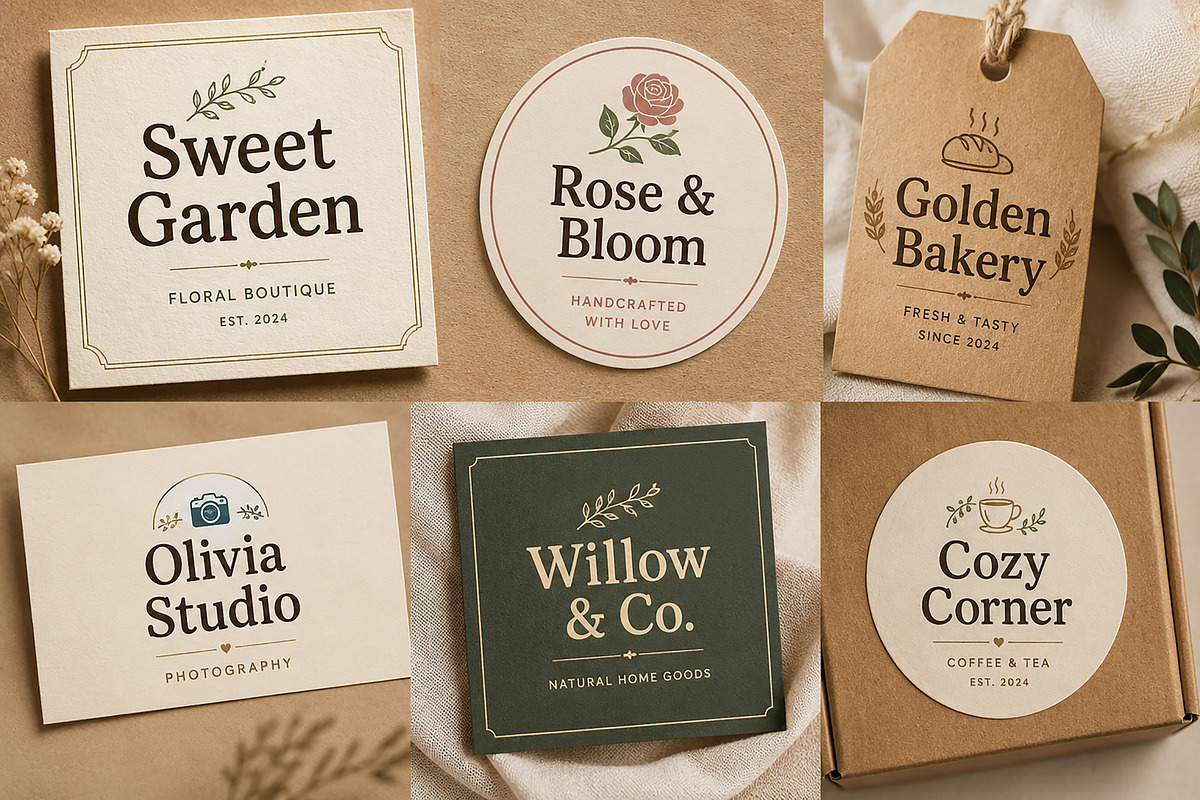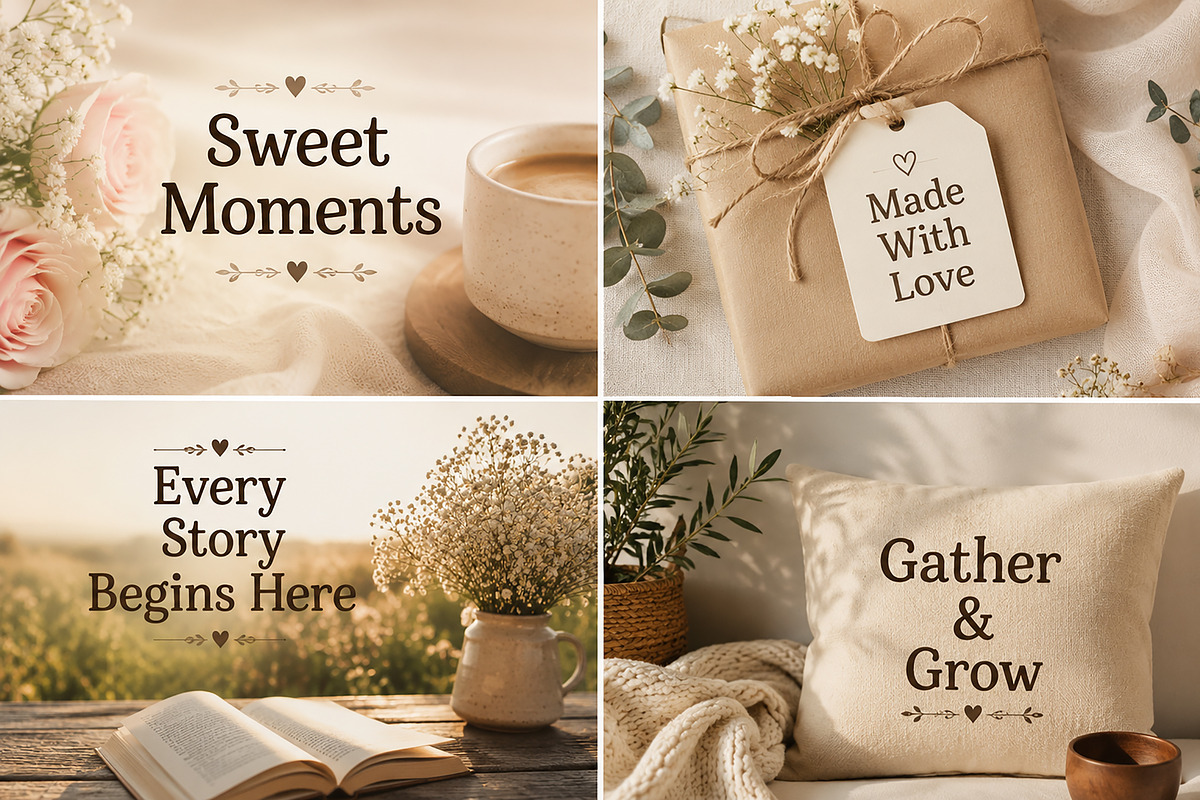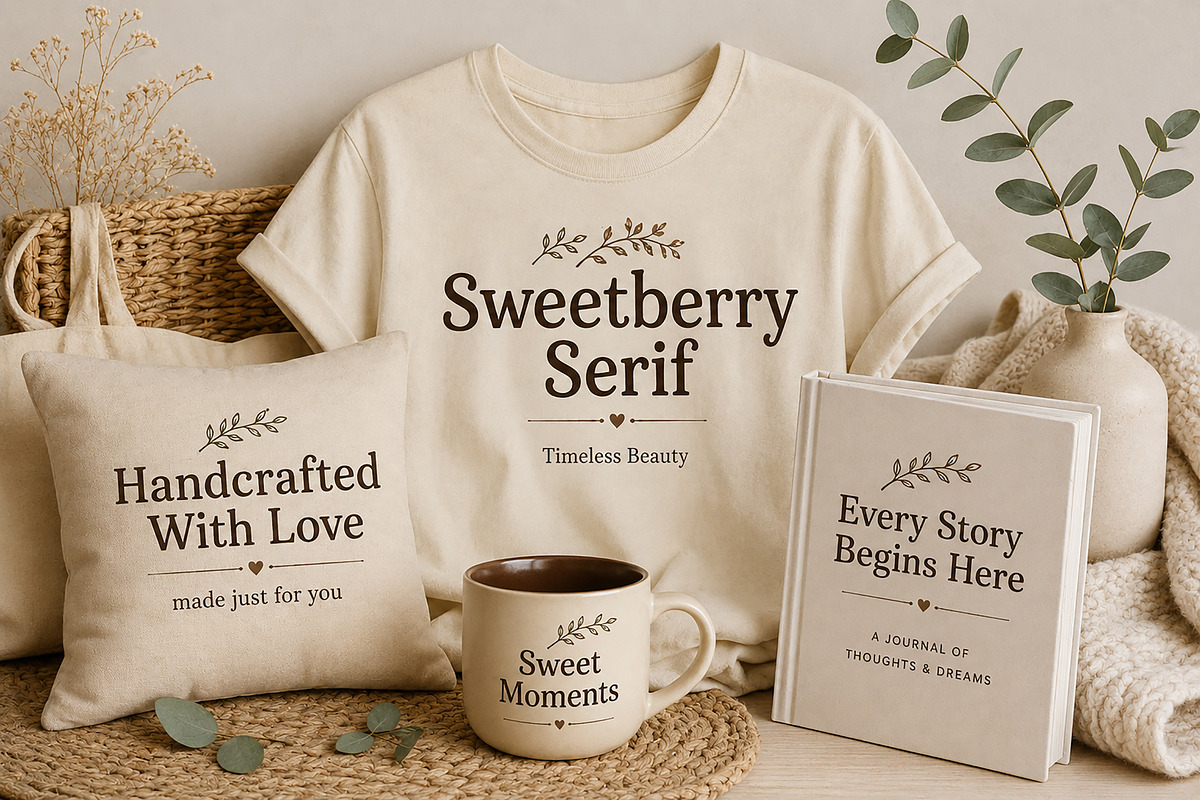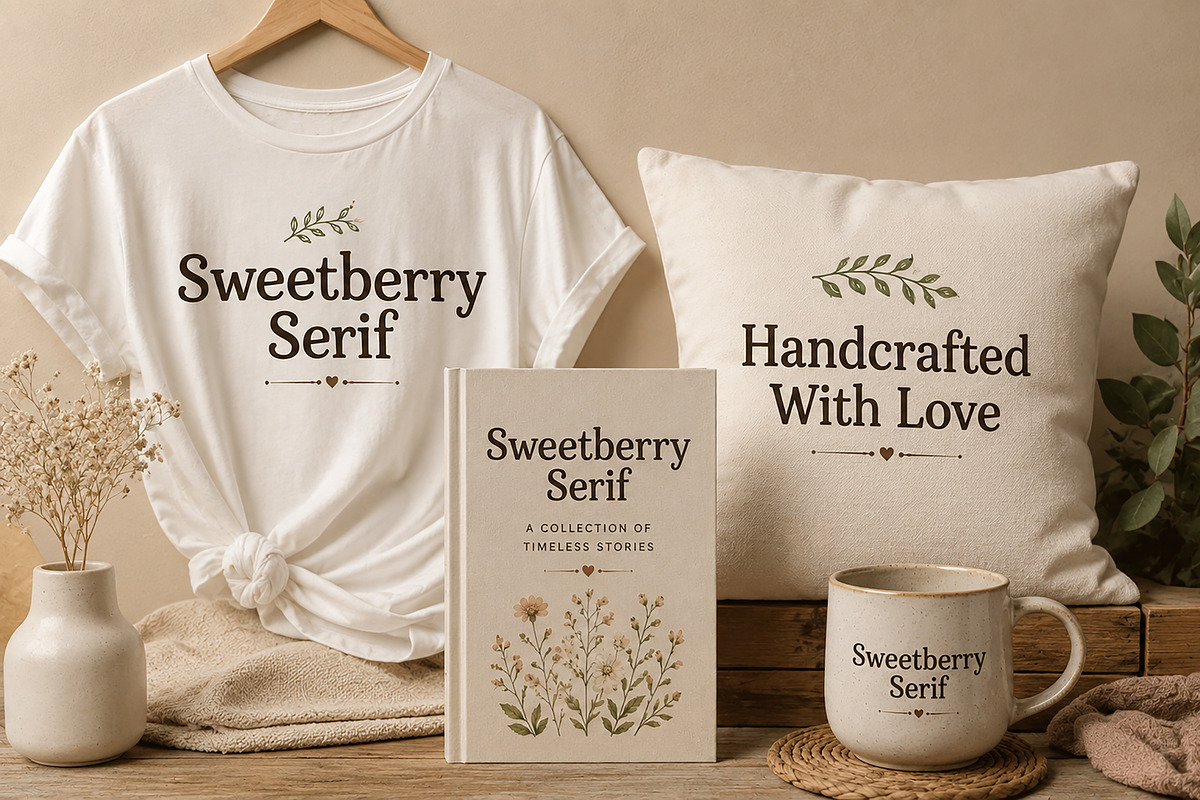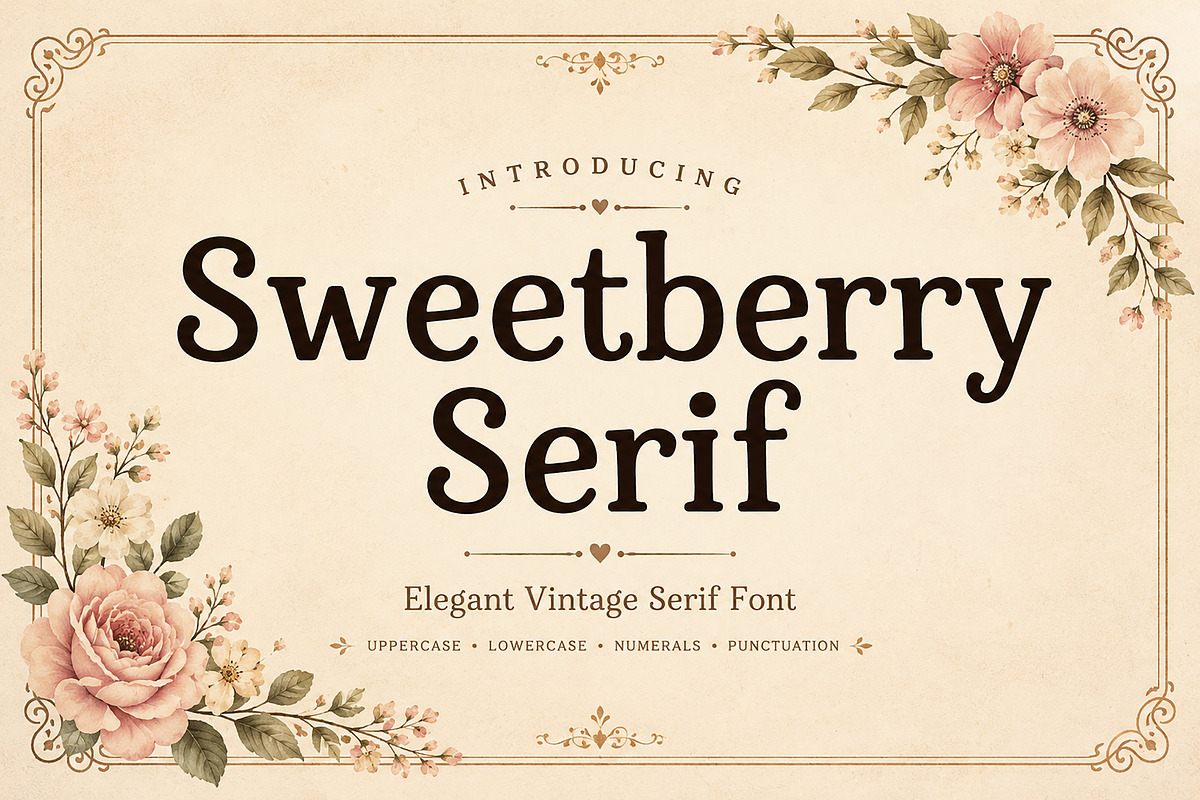
Sweetberry Serif
Sweetberry Serif – Elegant Vintage Serif Font
Sweetberry Serif is a charming and timeless serif typeface designed to bring warmth, elegance, and personality to your creative projects. Featuring soft curves, vintage-inspired details, and beautifully balanced letterforms, this font is perfect for branding, logos, packaging, invitations, editorial layouts, social media graphics, and handcrafted product designs.
Whether you're creating a boutique brand identity, a wedding invitation suite, a cozy café menu, or stylish Instagram content, Sweetberry Serif adds a sophisticated yet approachable touch that stands out beautifully.
Its classic serif structure combined with gentle vintage character makes it versatile for both modern and nostalgic design aesthetics.
Branding & Logo Design
Wedding Invitations
Editorial & Magazine Layouts
Product Labels
Café & Bakery Branding
Home Décor Quotes
Etsy Shop Designs
Feminine Branding
Vintage-Inspired Projects
Create beautiful, memorable designs with the timeless charm of Sweetberry Serif.